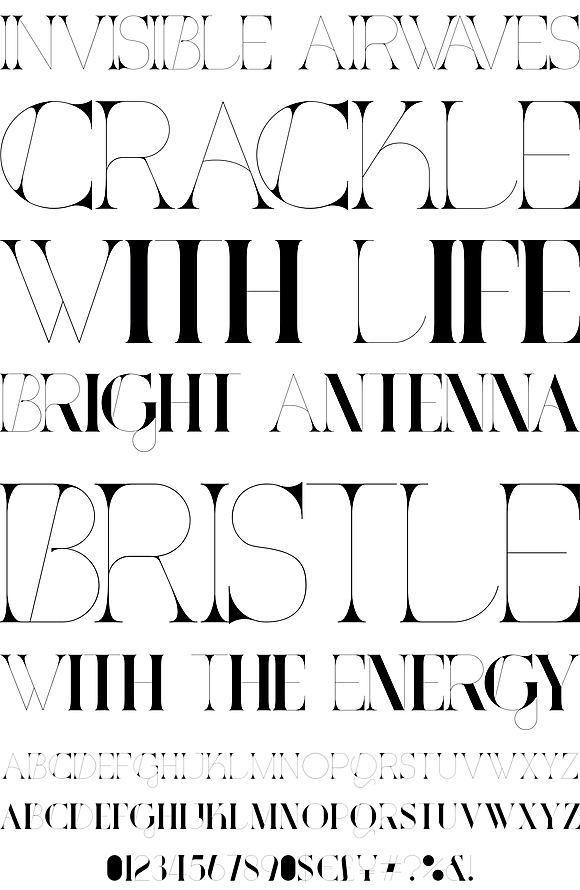
+13 Specimen Font Ideas
Spectral Offers An Efficient, Beautiful Design That’s Intended Primarily For Text.
Inter Is A Variable Font Family Carefully Crafted & Designed For Computer Screens.
However it’s not a simple revivalism. It is a sans serif typeface intended to work well in. Source® sans pro, adobe's first open source typeface family, was designed by paul d.
With Support For The Devanagari And Latin Writing Systems, It Is An Internationalist Take On The Genre.
Web the following text uses a font called tangerine: This new sideshow typeface will fill the bill! Geometric sans serif typefaces have been a popular design tool ever since these actors took to the world’s stage.
This version contains the complete 897 character set, which includes the standard iso latin 1, latin ce, greek and cyrillic character sets. Poppins is one of the new comers to this long tradition. Web making the web more beautiful, fast, and open through great typography